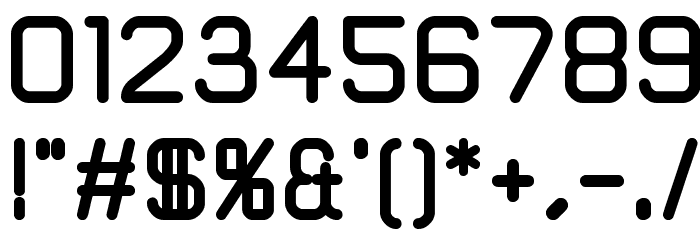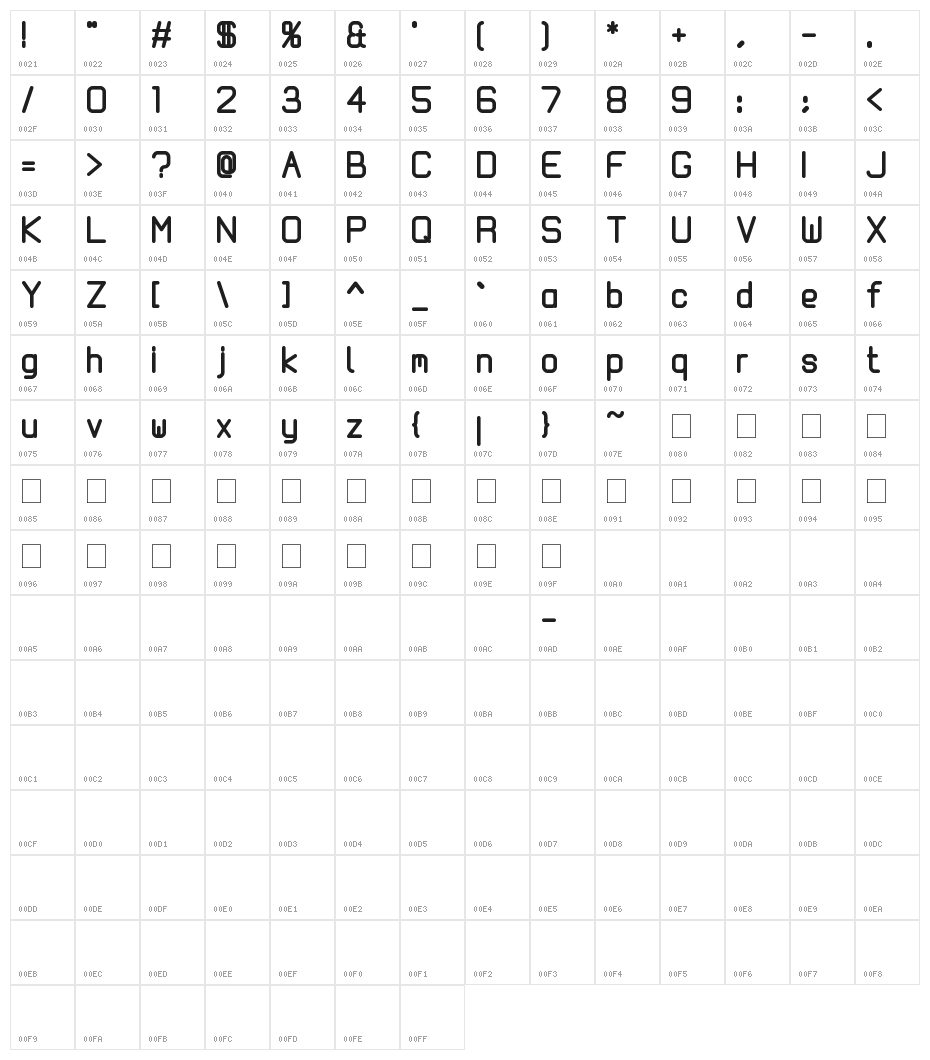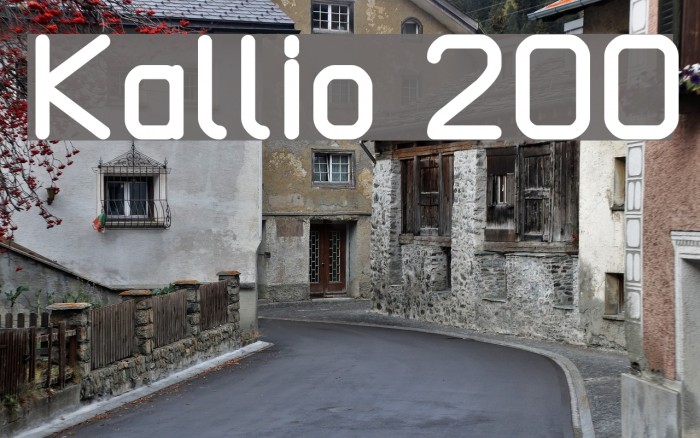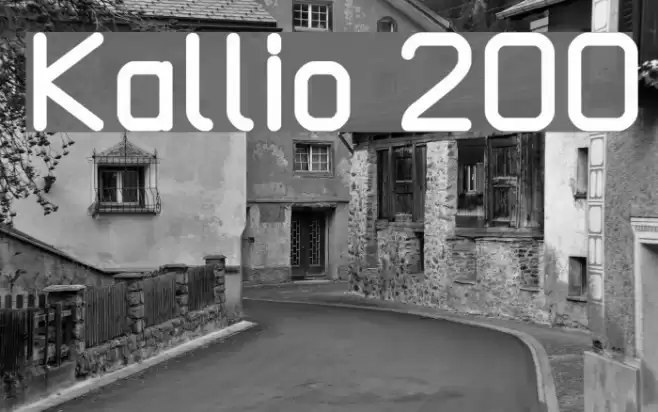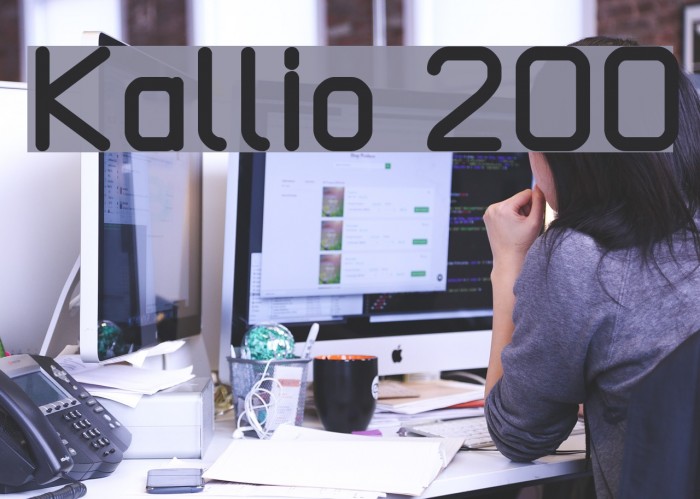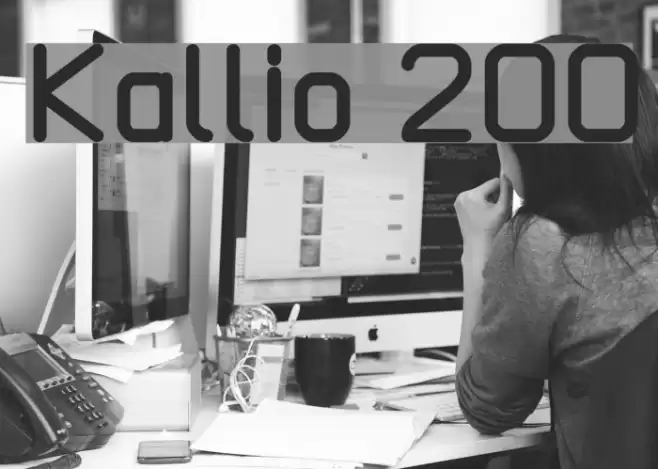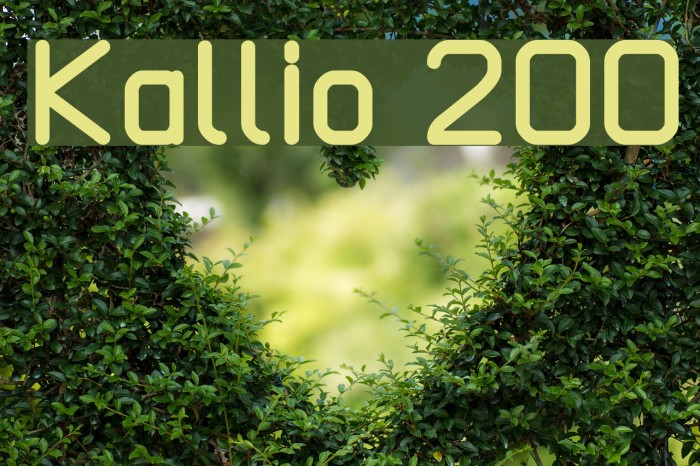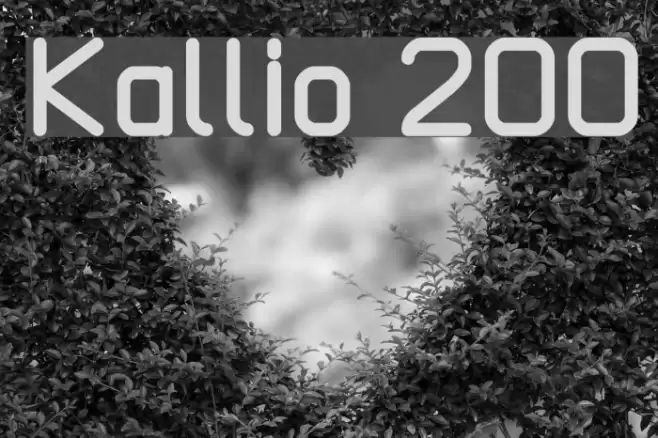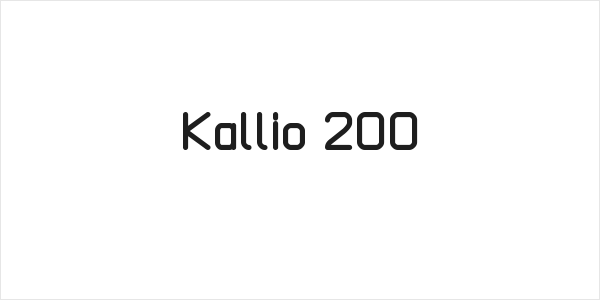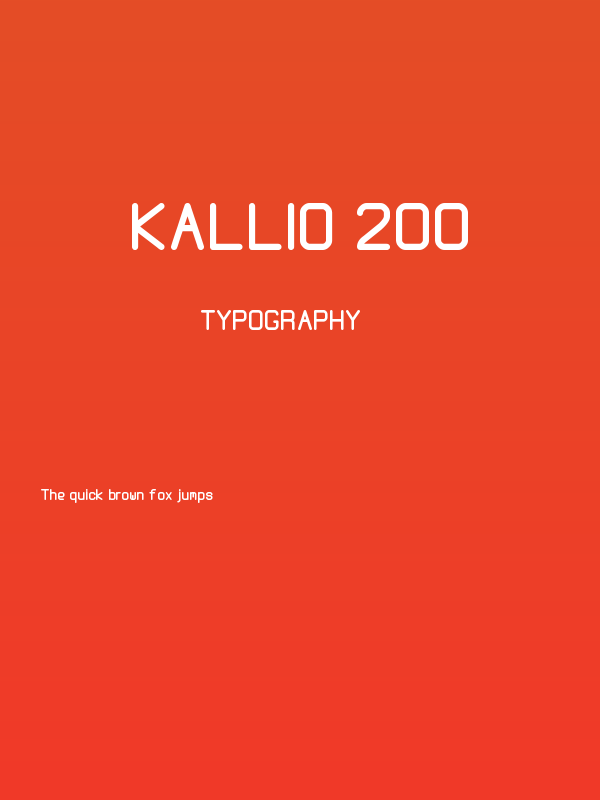
Kallio 200 Font
Kallio 200 Description
This font features a modern, geometric style with rounded edges, giving it a friendly and approachable appearance. The characters are uniform in width, contributing to a clean and organized look. The uppercase and lowercase letters maintain consistent proportions, enhancing readability. The numerals are distinct and align well with the overall design, while the special characters are crafted to match the font's aesthetic. The smooth curves and lack of sharp angles make it suitable for a variety of applications where a contemporary and inviting feel is desired.
| Use Case | Headlines, Logos, Digital Interfaces |
| Proposed Projects | Ideal for branding, digital interfaces, signage, and advertising materials. |